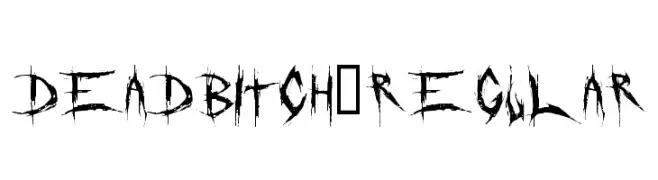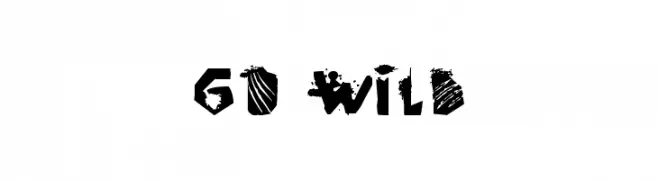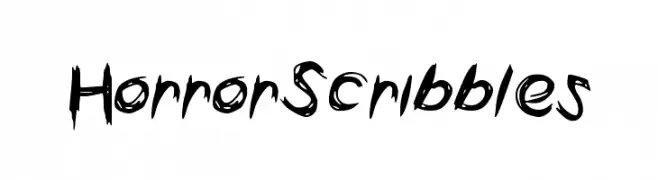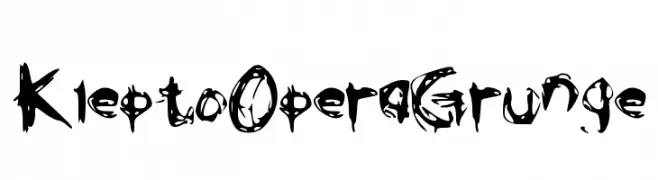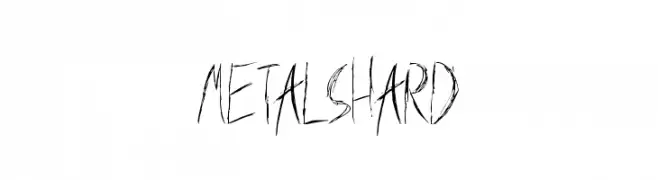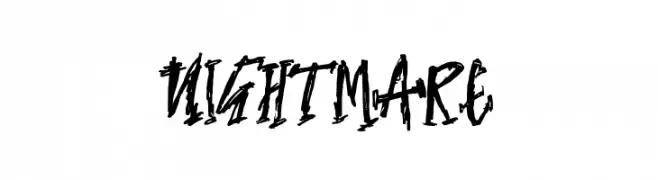
A jagged, edgy font with sharp, irregular strokes and a hand-drawn feel.
A distressed, jagged font with a raw, edgy appearance.
A rugged, hand-drawn font with a metallic, industrial aesthetic.
A chaotic, grungy font with jagged edges and a rebellious aesthetic.
A distressed, grungy font with jagged edges and a rebellious style.
A chaotic, scribble-like font perfect for horror themes.
A bold, distressed font with a horror-inspired, brush-stroke appearance.
A distressed, chaotic font with sharp, jagged edges and a rebellious aesthetic.
A rugged, distressed font with a wild, untamed aesthetic.
A chaotic, edgy font with jagged, irregular strokes and a distressed appearance.